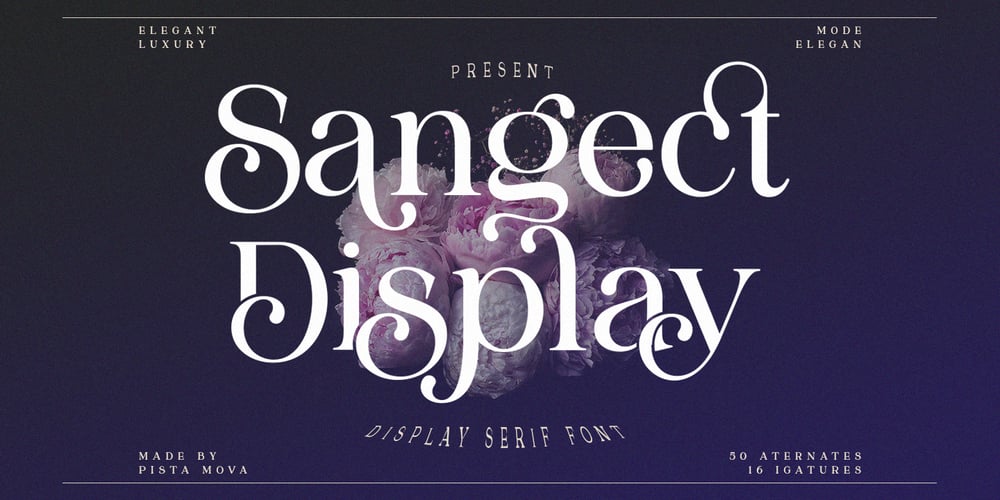
Sangect Display
Sangect Display font
Sangect Display Font Family was designed by Haikal Juanda and published by Pista Mova. Sangect Display contains 2 styles and family package options. The display typeface is a modern take on a classic style. While paying homage to old-style type sensibilities, Sangect Display takes the characteristics of serif type and leans into drama and boldness with strong contrast in stroke width, and soft edges. Sangect Display appearance emphasizes elegance and elegance; ideal for loud and proud headlines.Which is included in the file Capital letters Lowercase Number Ligatures Alternative Symbol Multilingual Accents (Uppercase and Lowercase) The download includes the Sangect Display font in an (Open Type Font) file, and as a (True Type Font) file.If you have any questions, or are experiencing technical difficulties with a downloaded file, please send a message and I will be happy to help you!